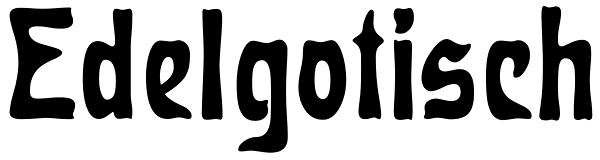
Edelgotisch
Edelgotisch is a bold Jugendstil design that shows its strong blackletter roots. This typeface, along with a set of initial letters, was released by Schelter & Giesecke of Leipzig, Germany about 1898 and is very similar to Eckmann-Schrift released...
Edelgotisch Initialen